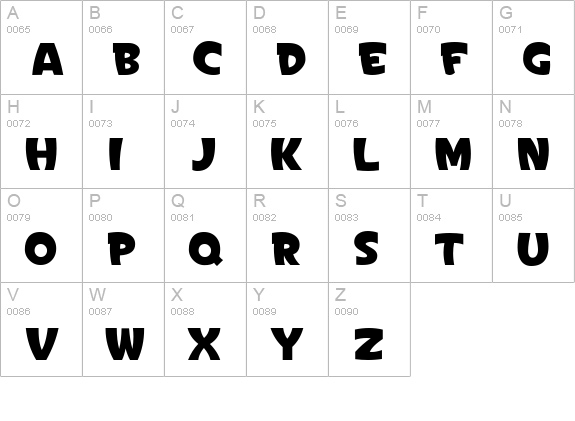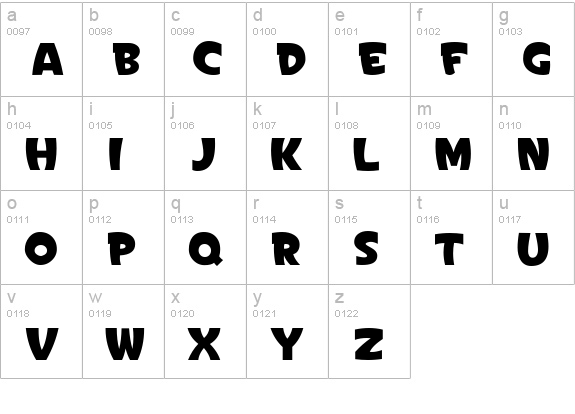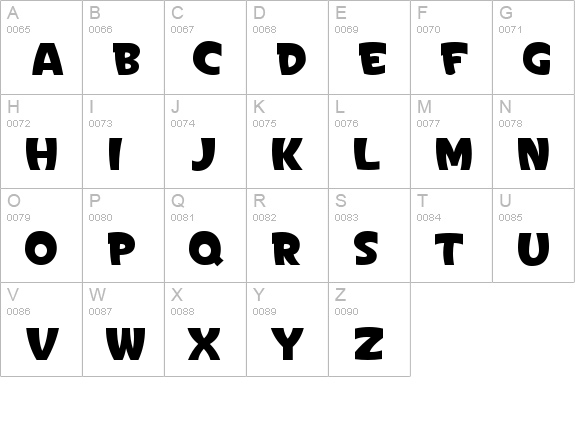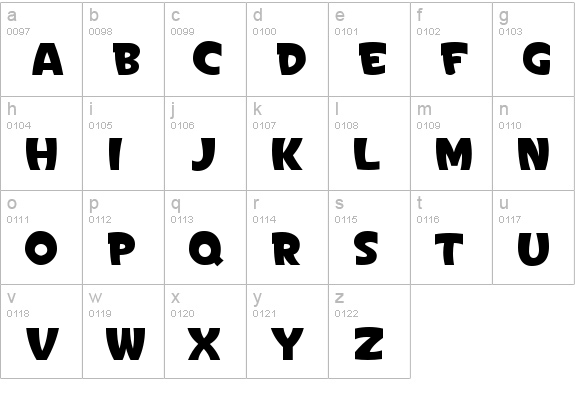
Sign Painter's Gothic JL Font Details
Sign Painter's Gothic JL is a captivating and versatile font that exudes a timeless charm. With its bold and clean lines, it effortlessly captures attention and adds a touch of elegance to any design. Whether you are creating a vintage-inspired logo, a stylish poster, or a captivating signage, this font is sure to make a bold statement. What makes Sign Painter's Gothic JL even more appealing is that it is freely available to download at FontsMarket.com. That's right, you can get your hands on this exceptional font without any cost. This means that designers, artists, and creators from all walks of life can enjoy the beauty and versatility of Sign Painter's Gothic JL without worrying about breaking the bank. The versatility of Sign Painter's Gothic JL is truly remarkable. It can seamlessly adapt to various design projects and styles, from traditional to modern, from playful to sophisticated. Its wide range of characters and glyphs allows for endless creative possibilities, ensuring that your designs will always stand out from the crowd. Whether you are a professional designer or a passionate hobbyist, Sign Painter's Gothic JL is a must-have font in your collection. Its timeless beauty, versatility, and the fact that it is freely available for download at FontsMarket.com make it an irresistible choice. So why wait? Download Sign Painter's Gothic JL today and let your creativity soar to new heights.